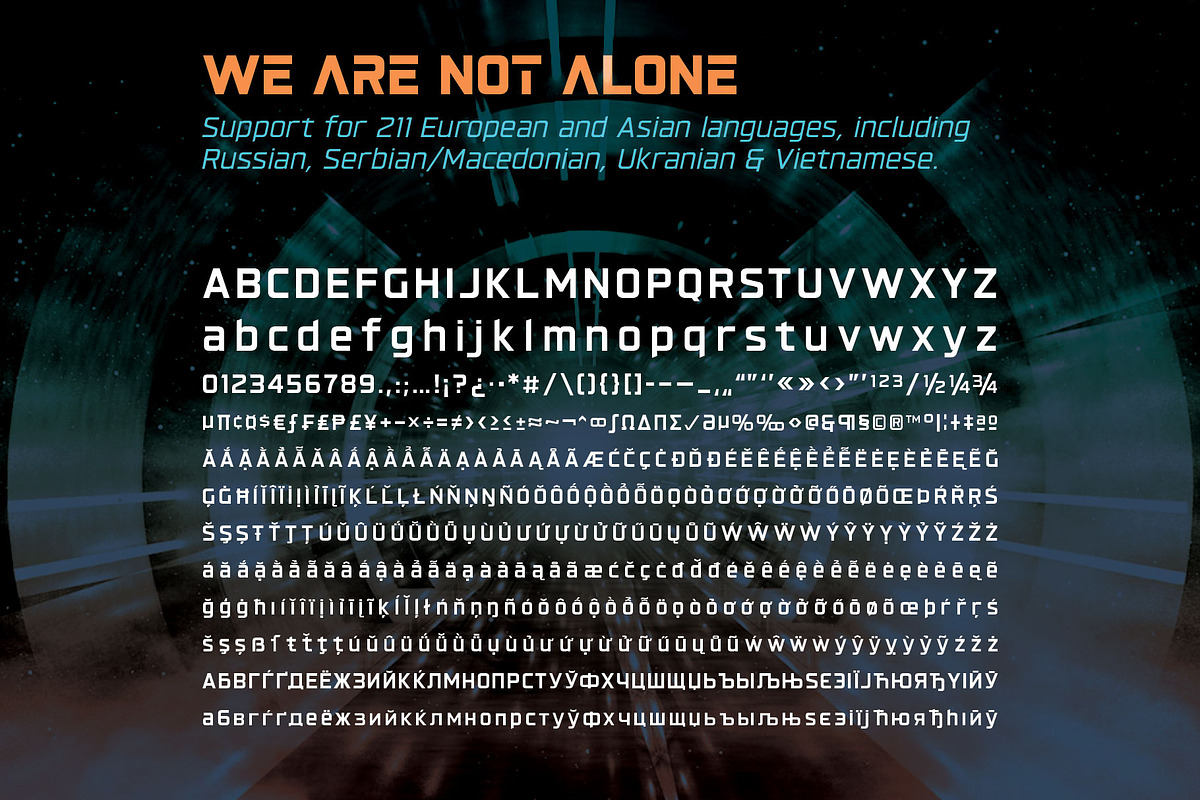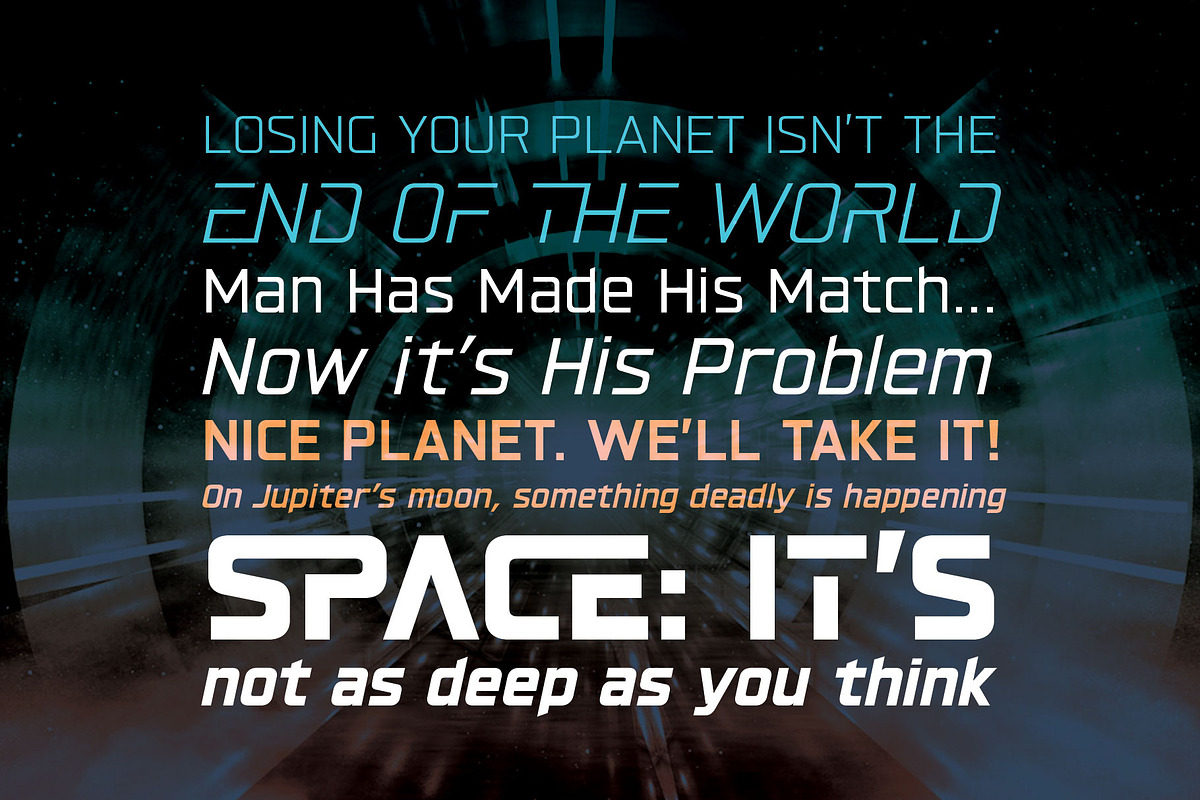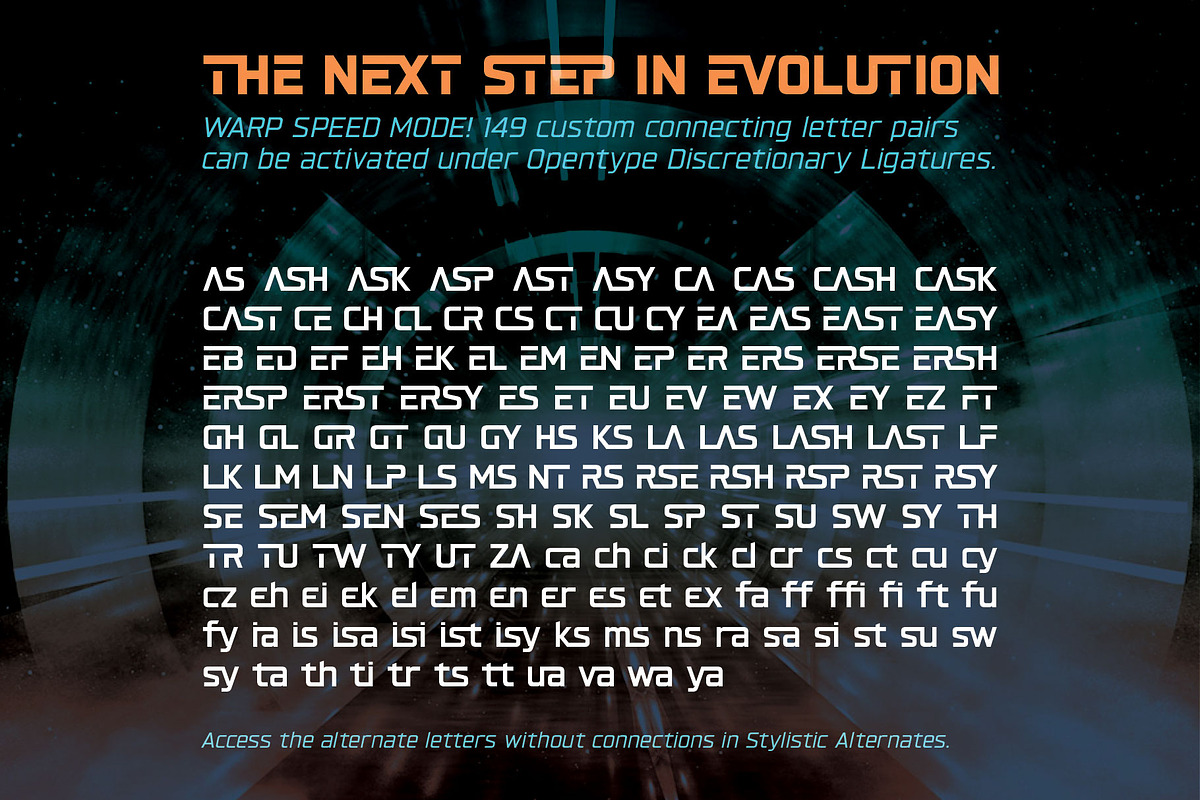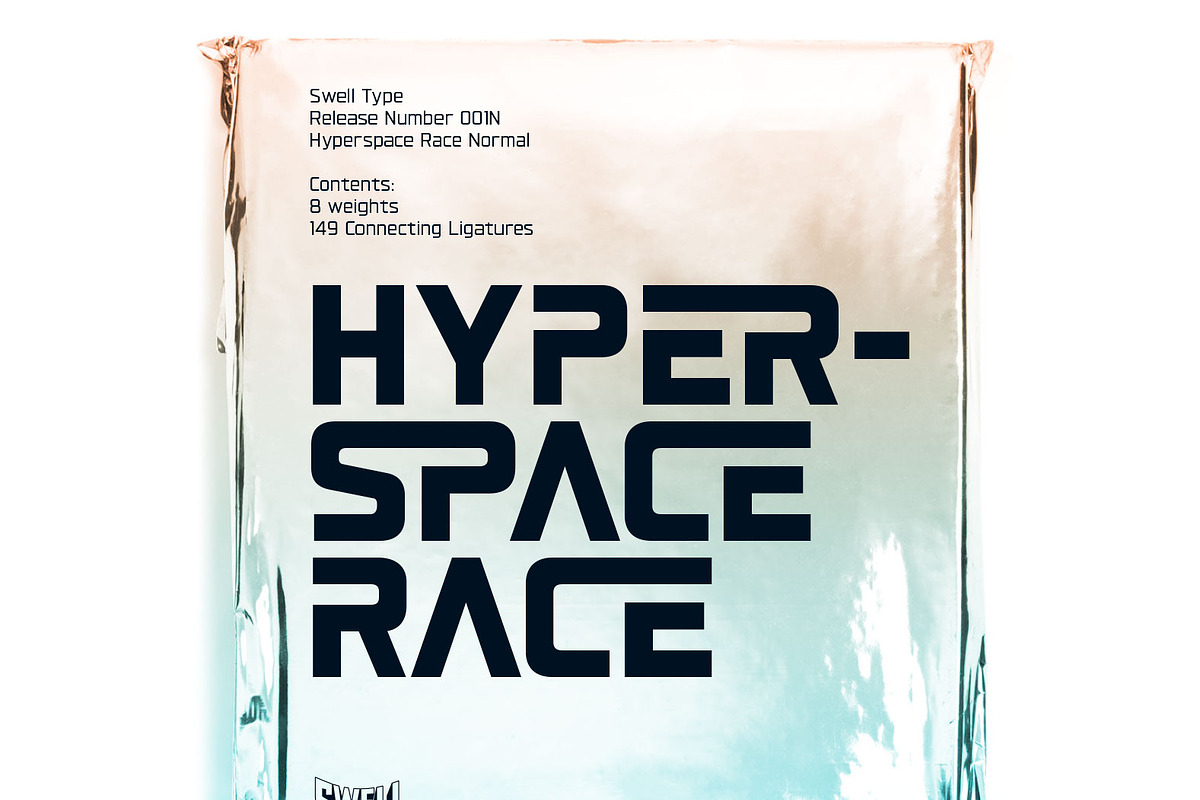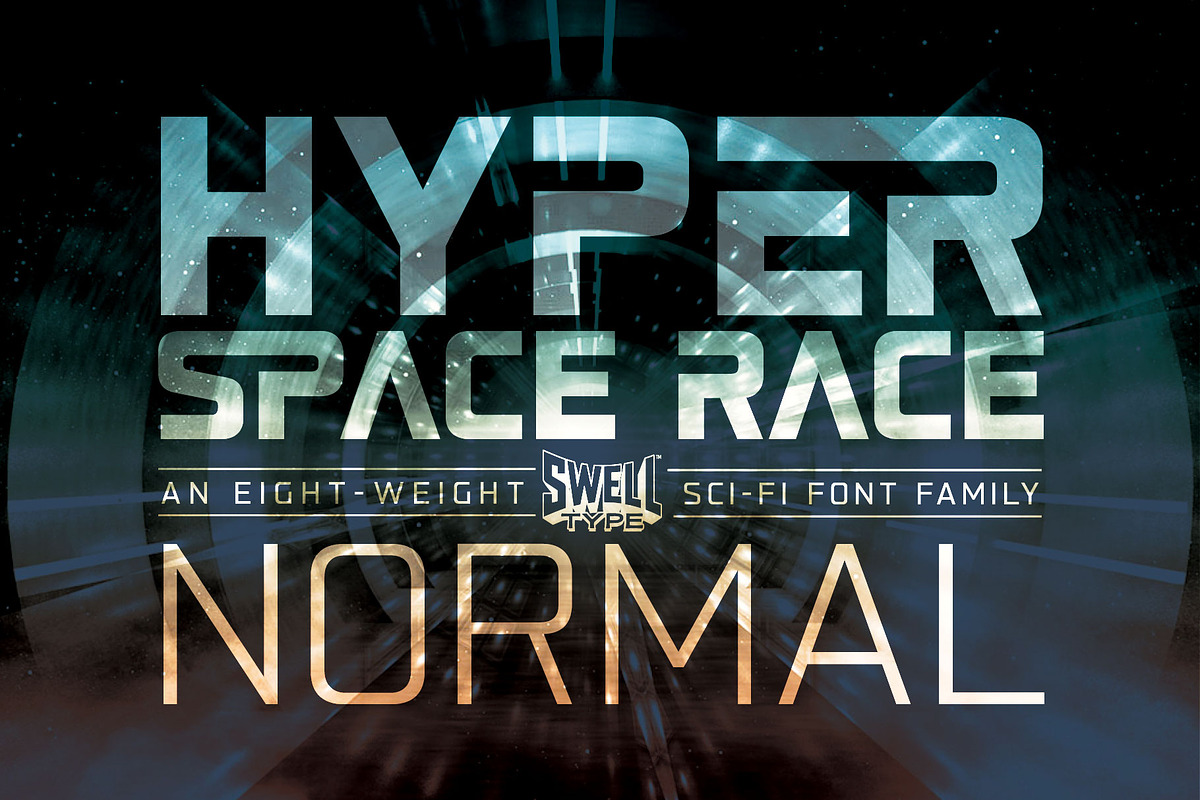
Hyperspace Race Sci-Fi font
It had to happen: Swell Type has reached into the future and returned with the ultimate hyper-awesome sci-fi font: HYPERSPACE RACE!
Hyperspace Race boldly goes where no sci-fi font has gone before…
Four weights: Light, Regular, Bold & Heavy with matching italics
WARP SPEED mode: 149 custom connecting letter pairs
Support for over 200 European & Asian languages, including Russian, Serbian/Macedonian, Ukranian & Vietnamese
Nice font. We'll take it!
Why Hyperspace Race Sci-Fi font is worth a look